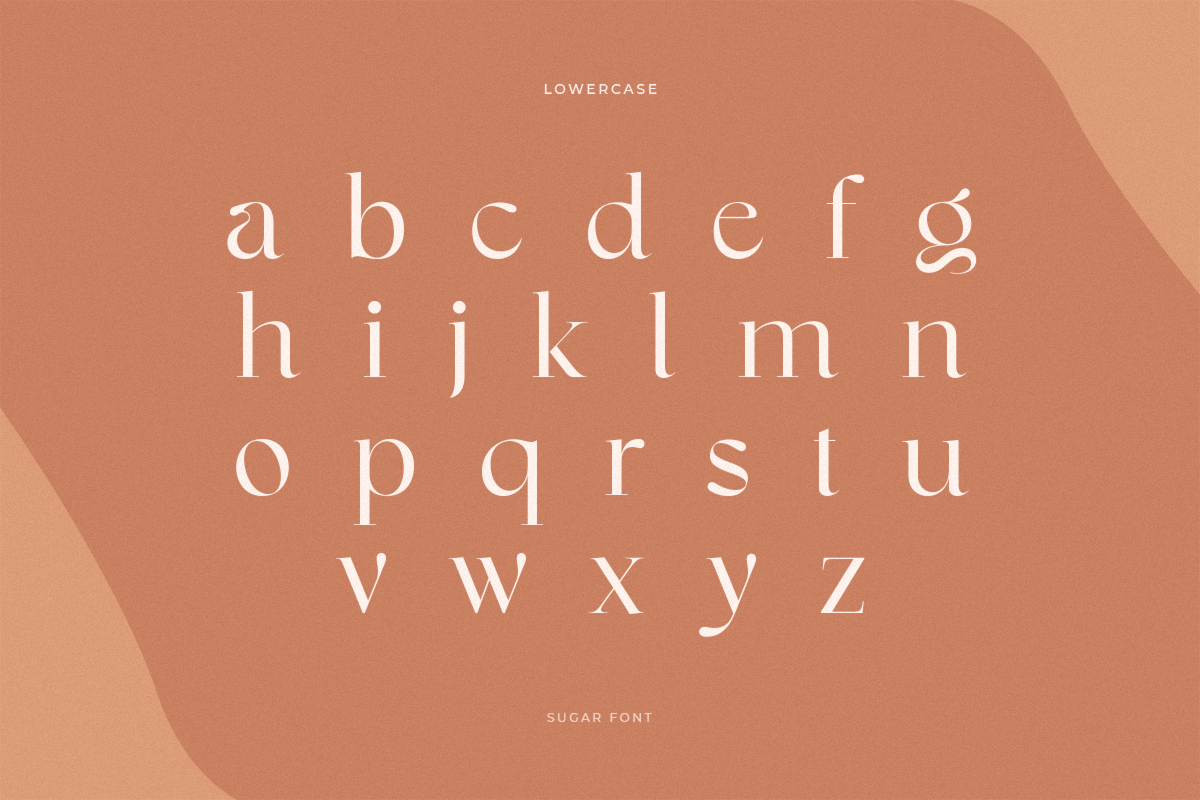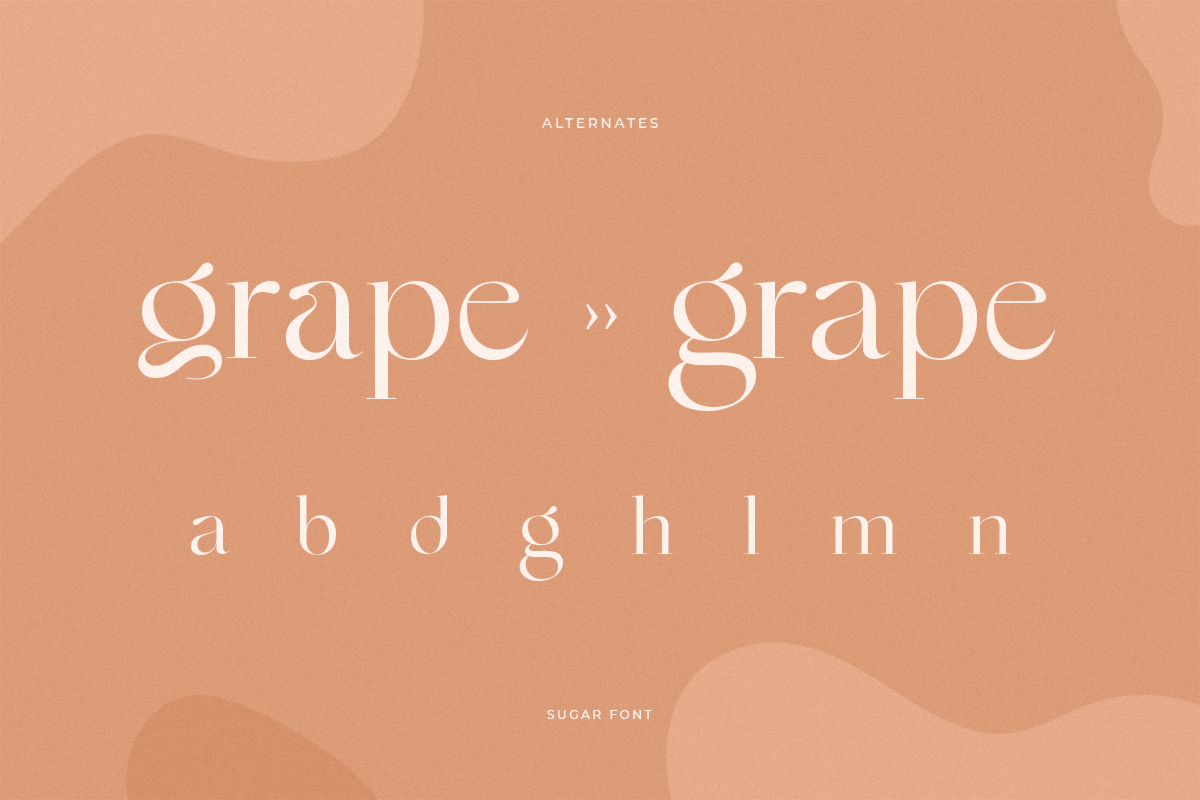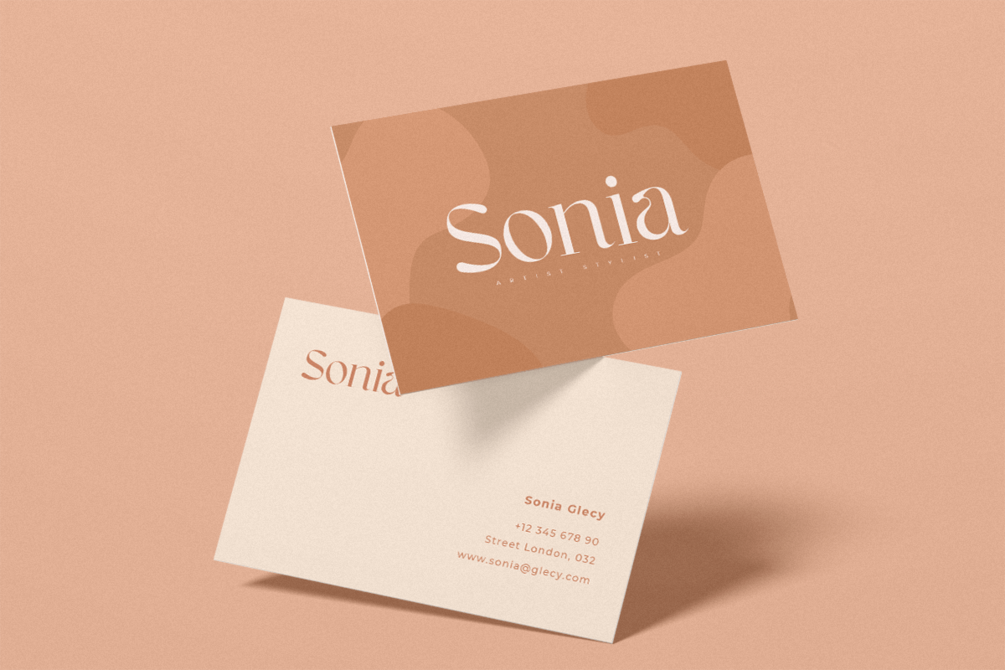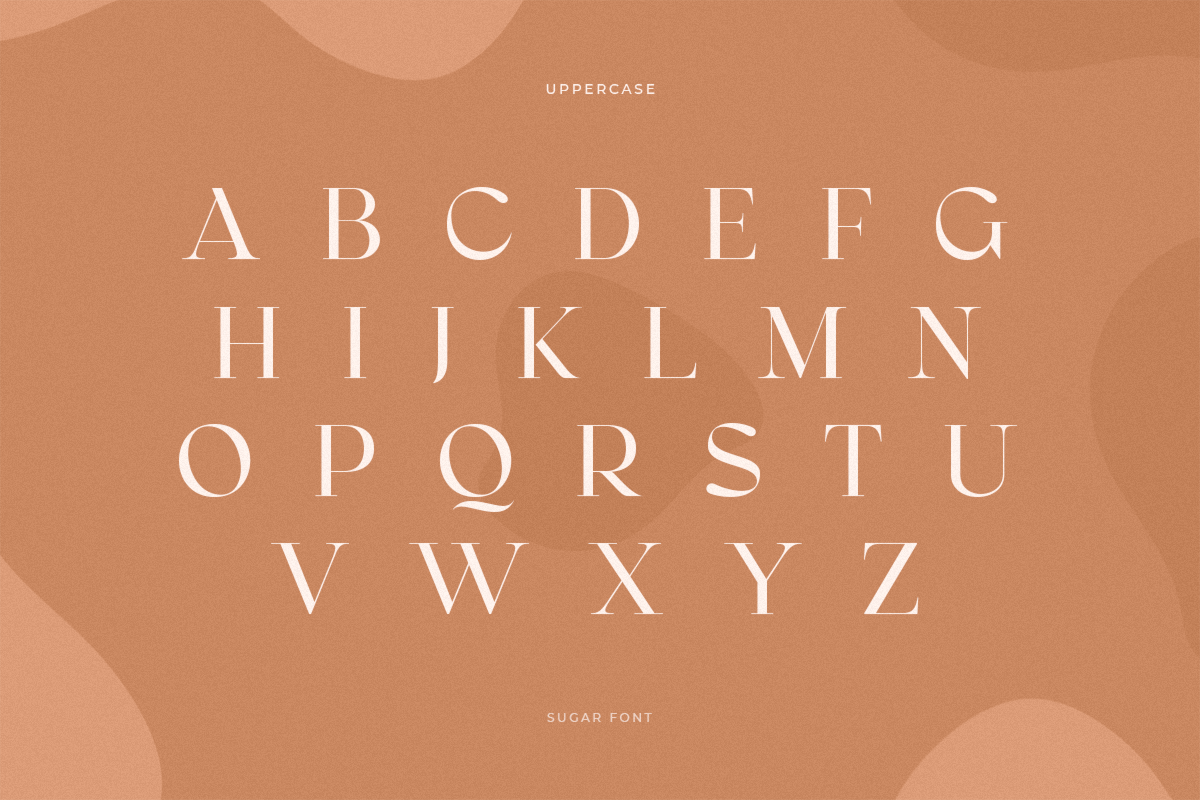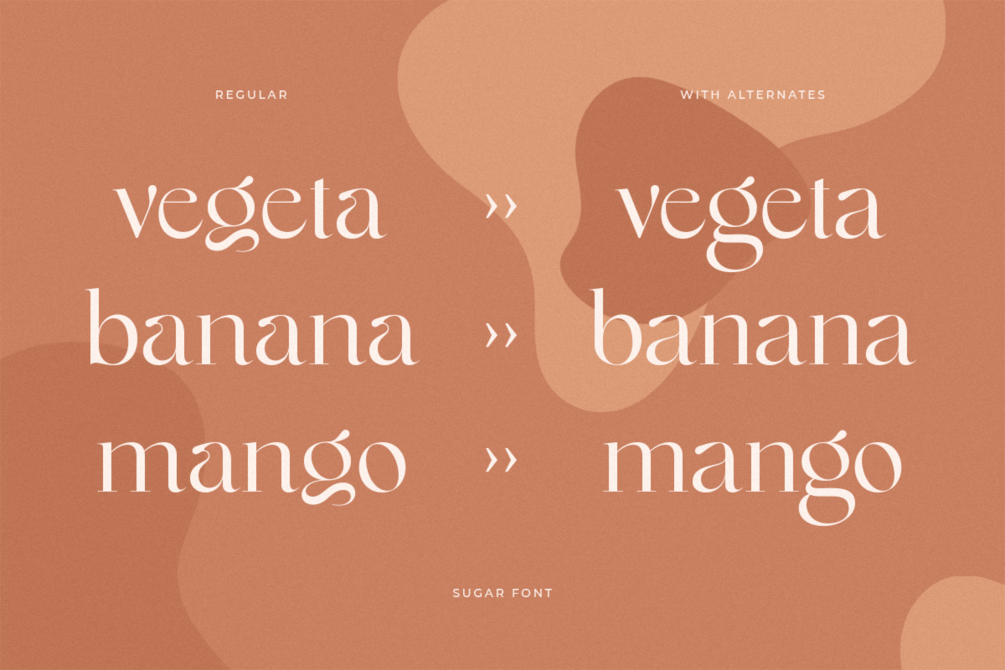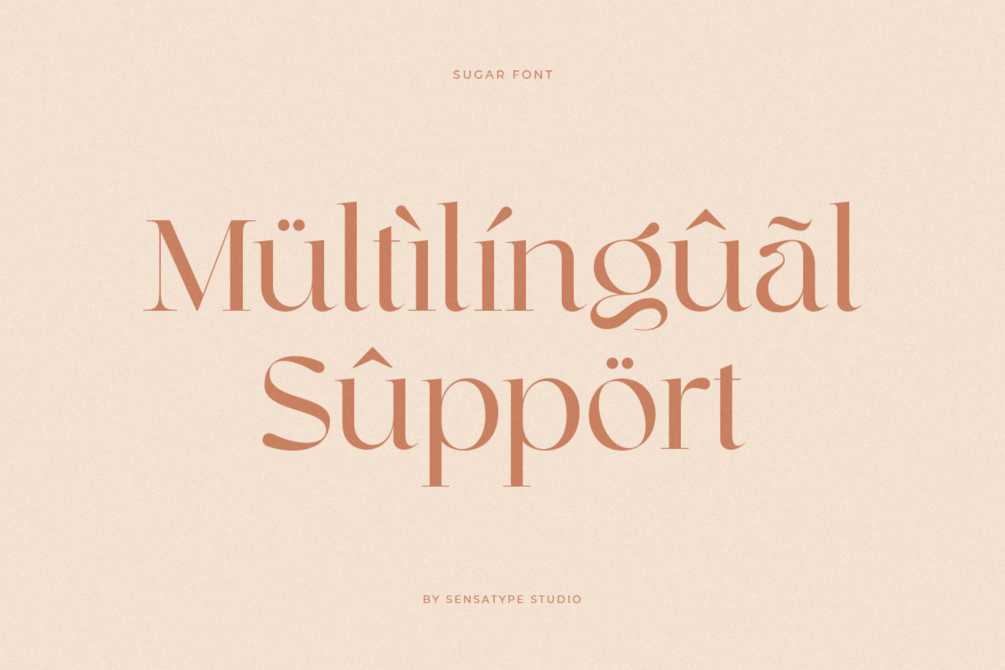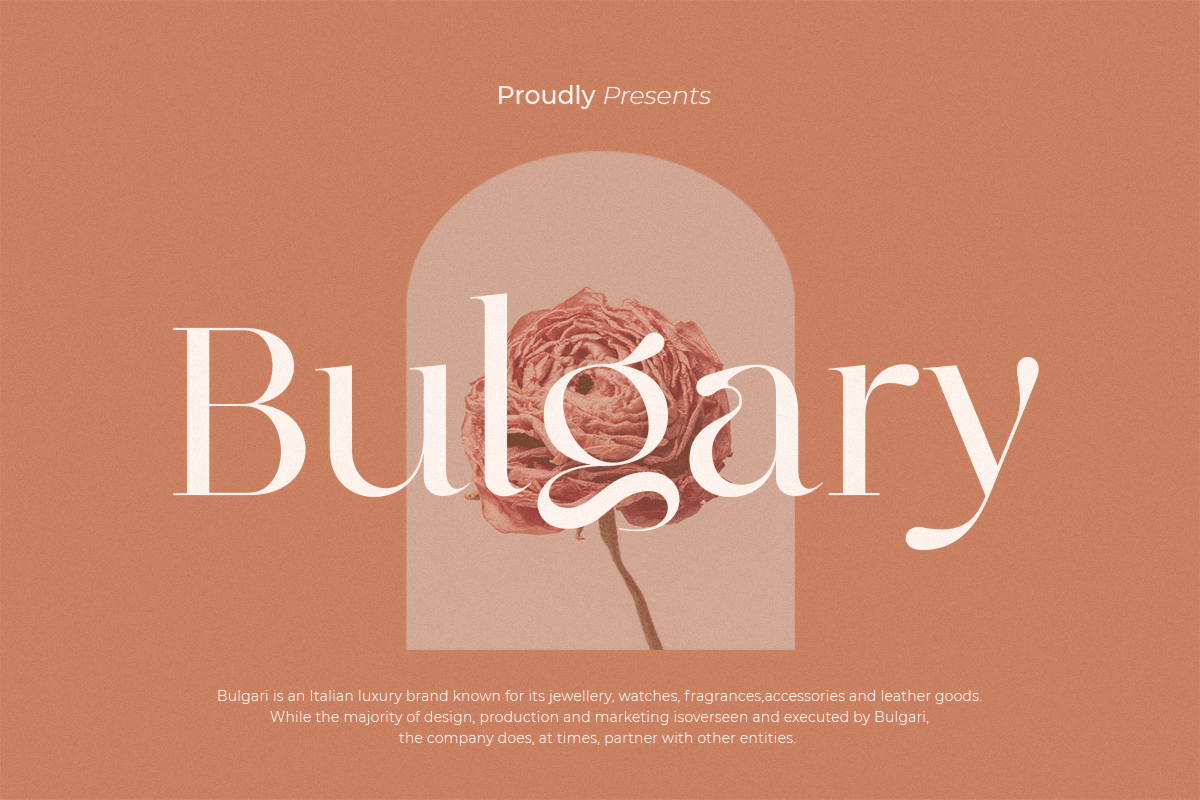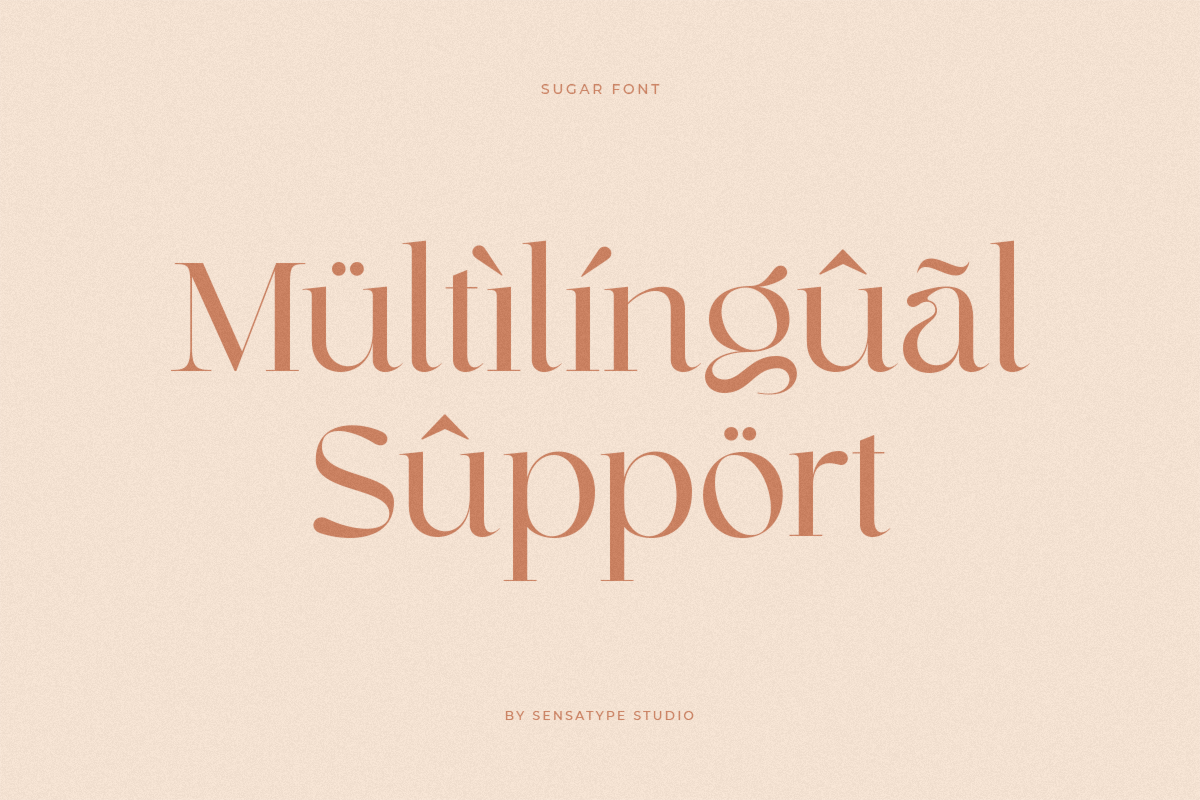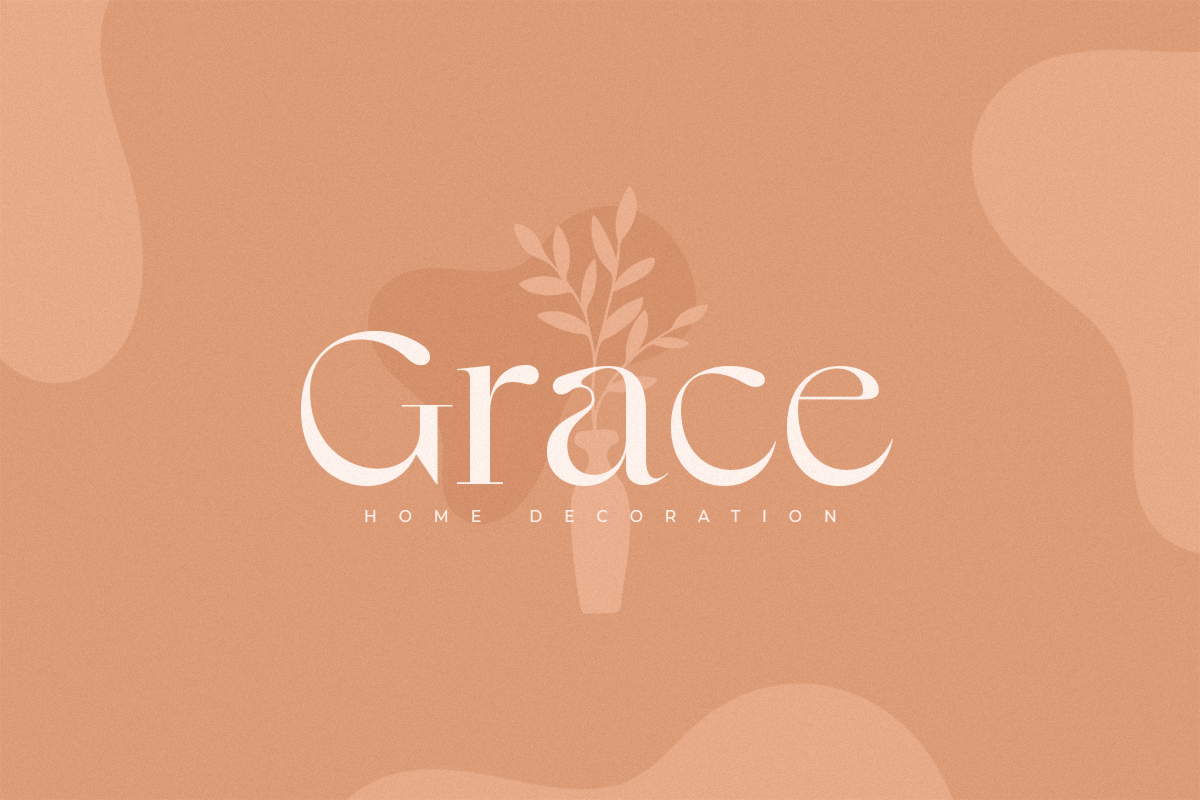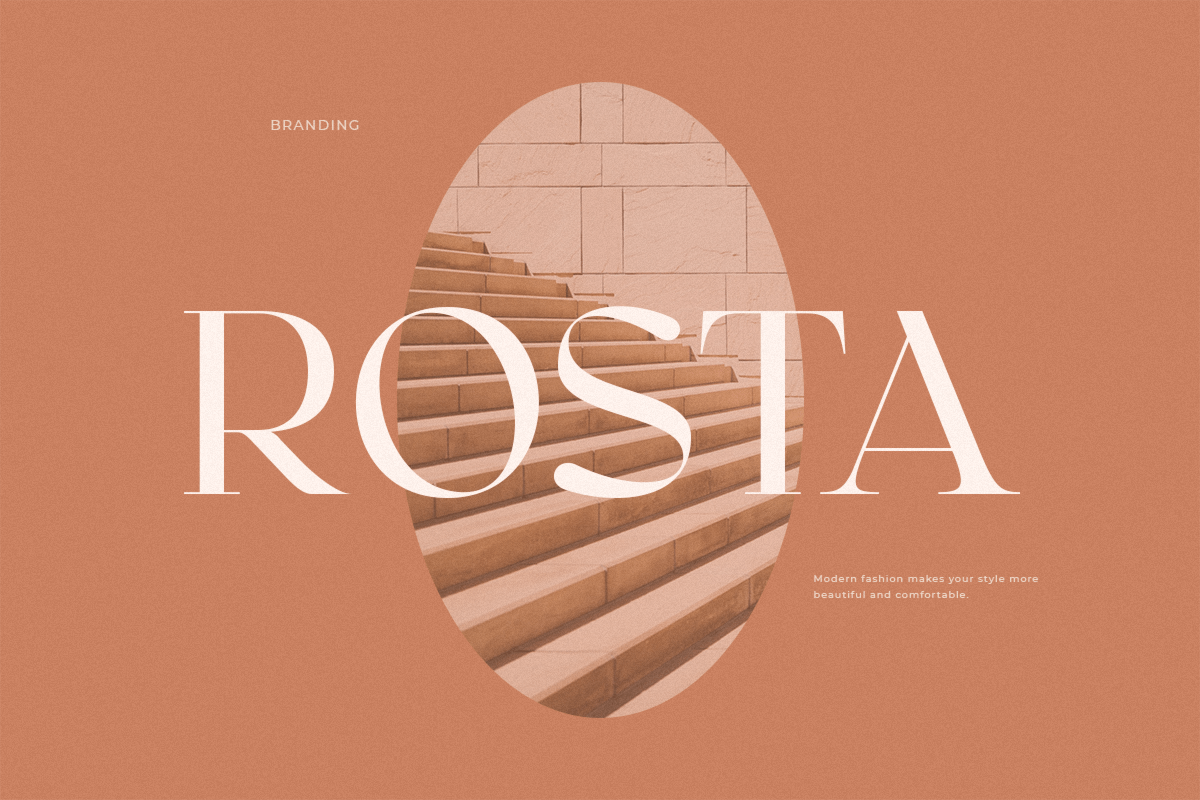
Sugar - Gorgeous Modern Font
Sugar is a gorgeous modern font designed to elevate your creative projects with style and sophistication. Ideal for branding, logos, packaging, social media, and editorial designs, it combines contemporary aesthetics with refined charm.
With clean and legible letterforms, Sugar ensures your projects look polished and professional, suitable for both digital and print applications.
Sugar – Gorgeous Modern Font Features
• Elegant and modern character set
• Perfect for branding, logos, and stylish designs
• Uppercase, lowercase, numerals, and punctuation included
• OpenType features for extra versatility
• Multilingual Support